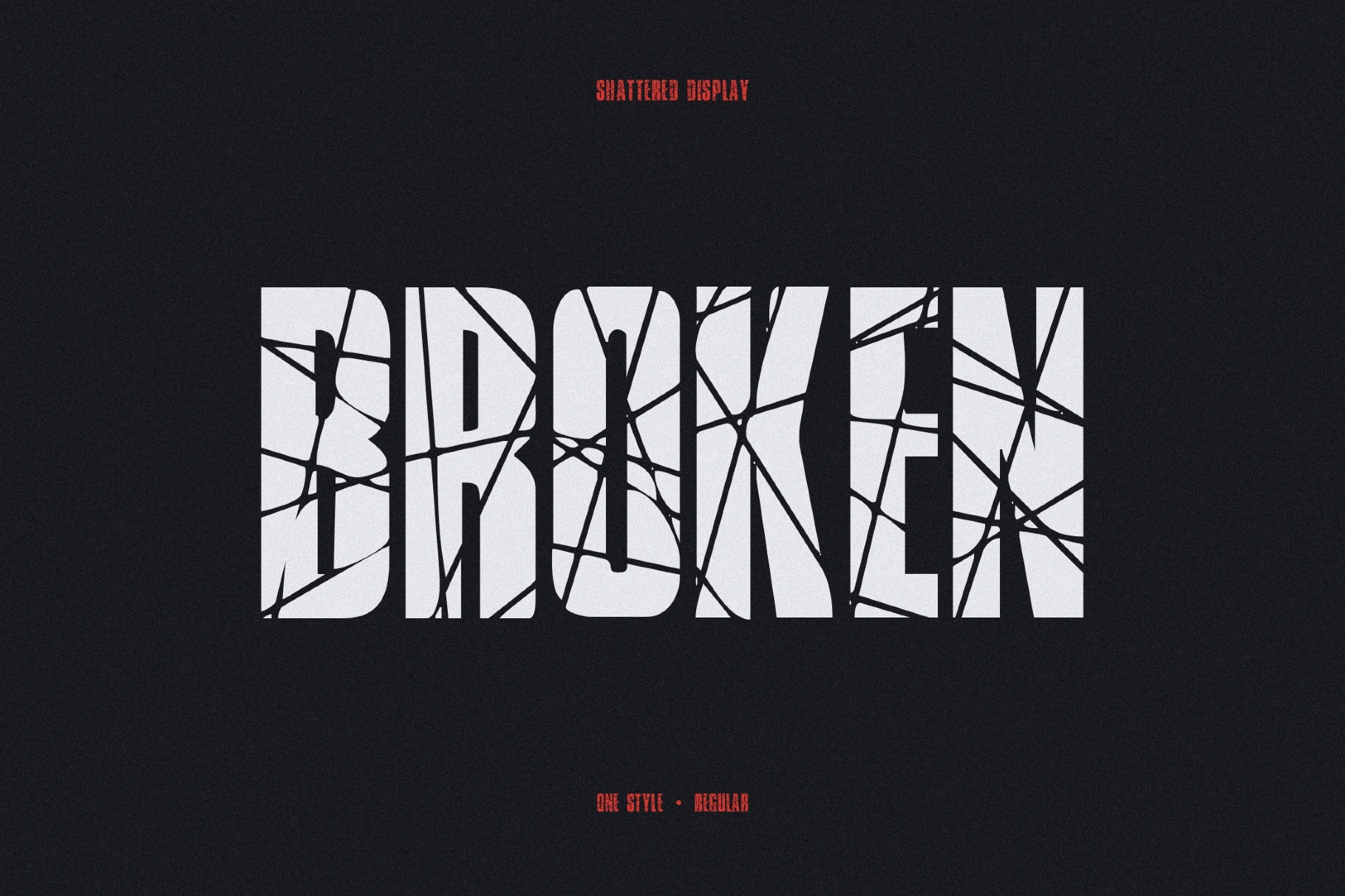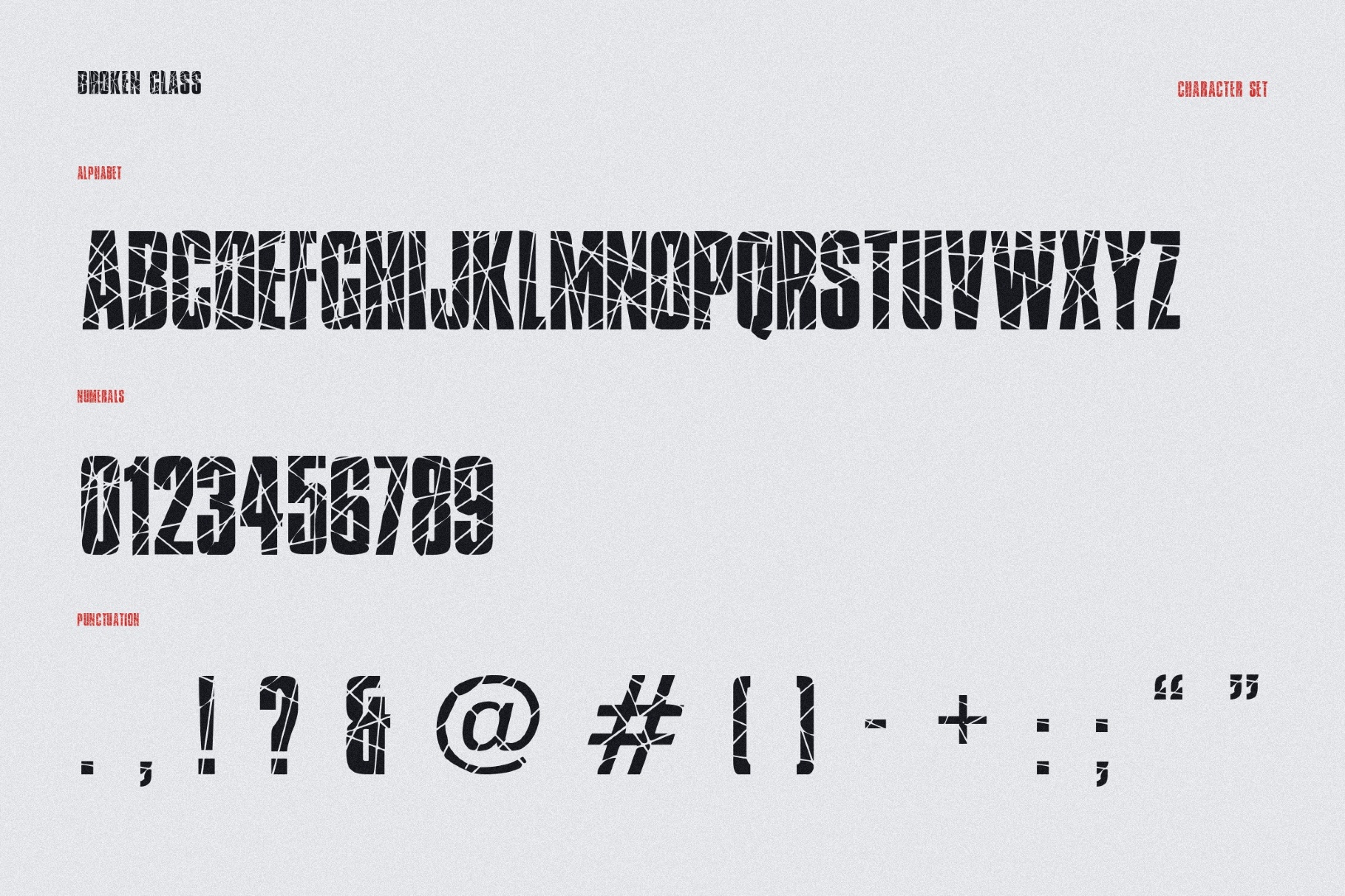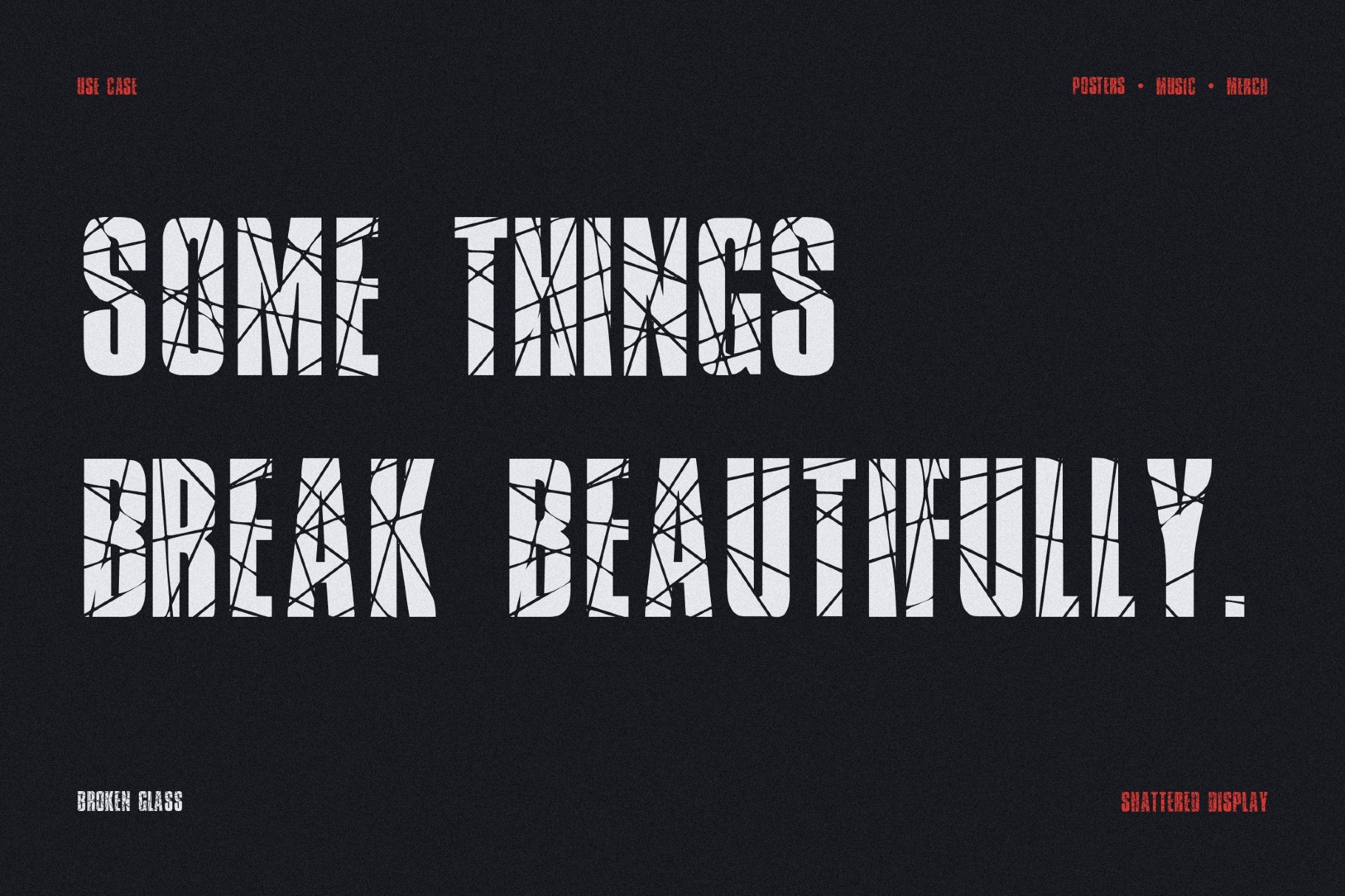
Broken Glass Font
Broken Glass turns tall block capitals into fractured black panels laced with sharp cracks like in thriller titles, comic books, nightclub posters, and shattered shop-window graphics. Its dramatic structure suits when a design needs instant tension and loud contrast, for example, in horror covers, crime podcasts, escape room branding, rock merch, event flyers, game logos, and social media announcements.
• uppercase letters;
• numbers, punctuation, and symbols;
• multilingual support across the extended Latin script.